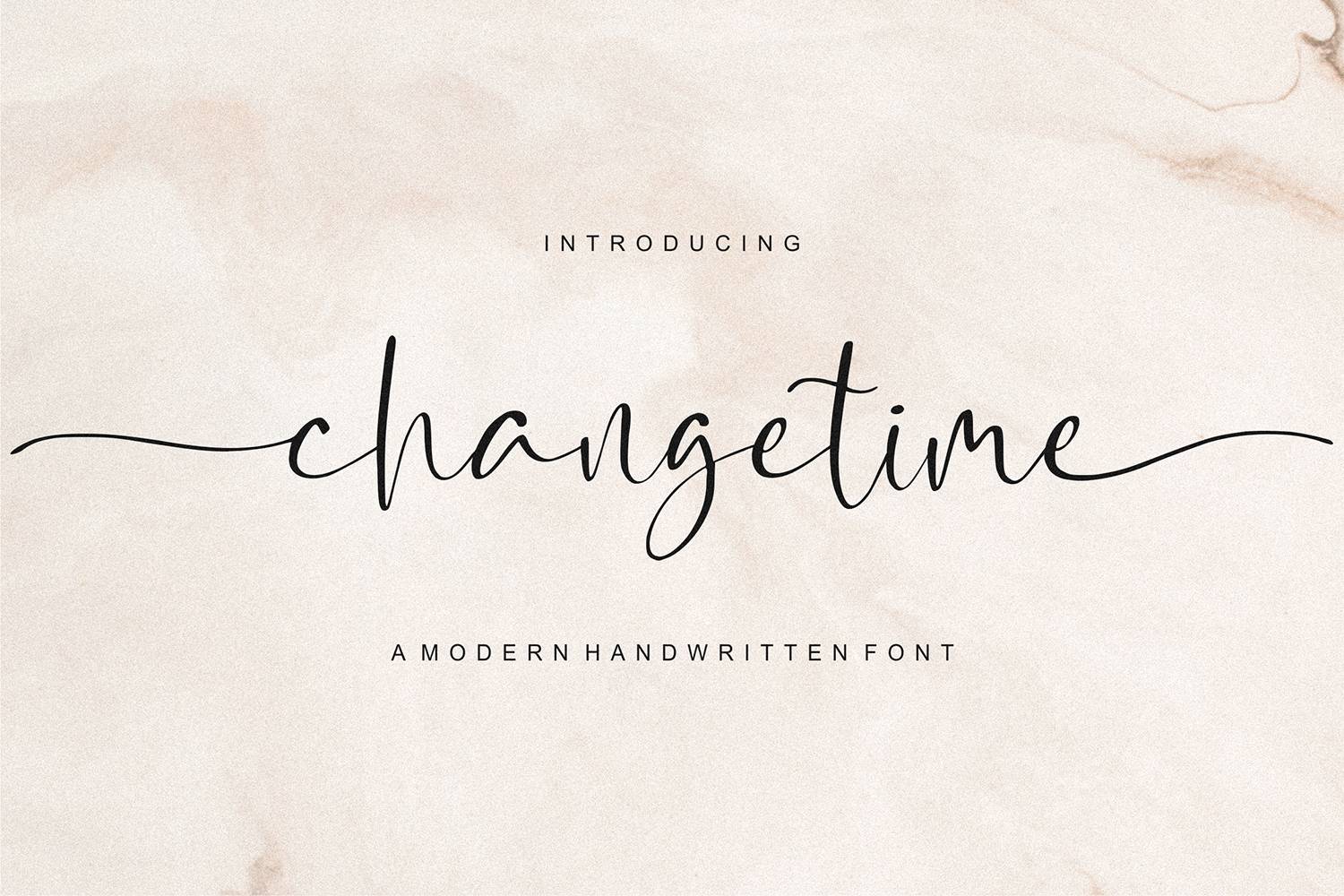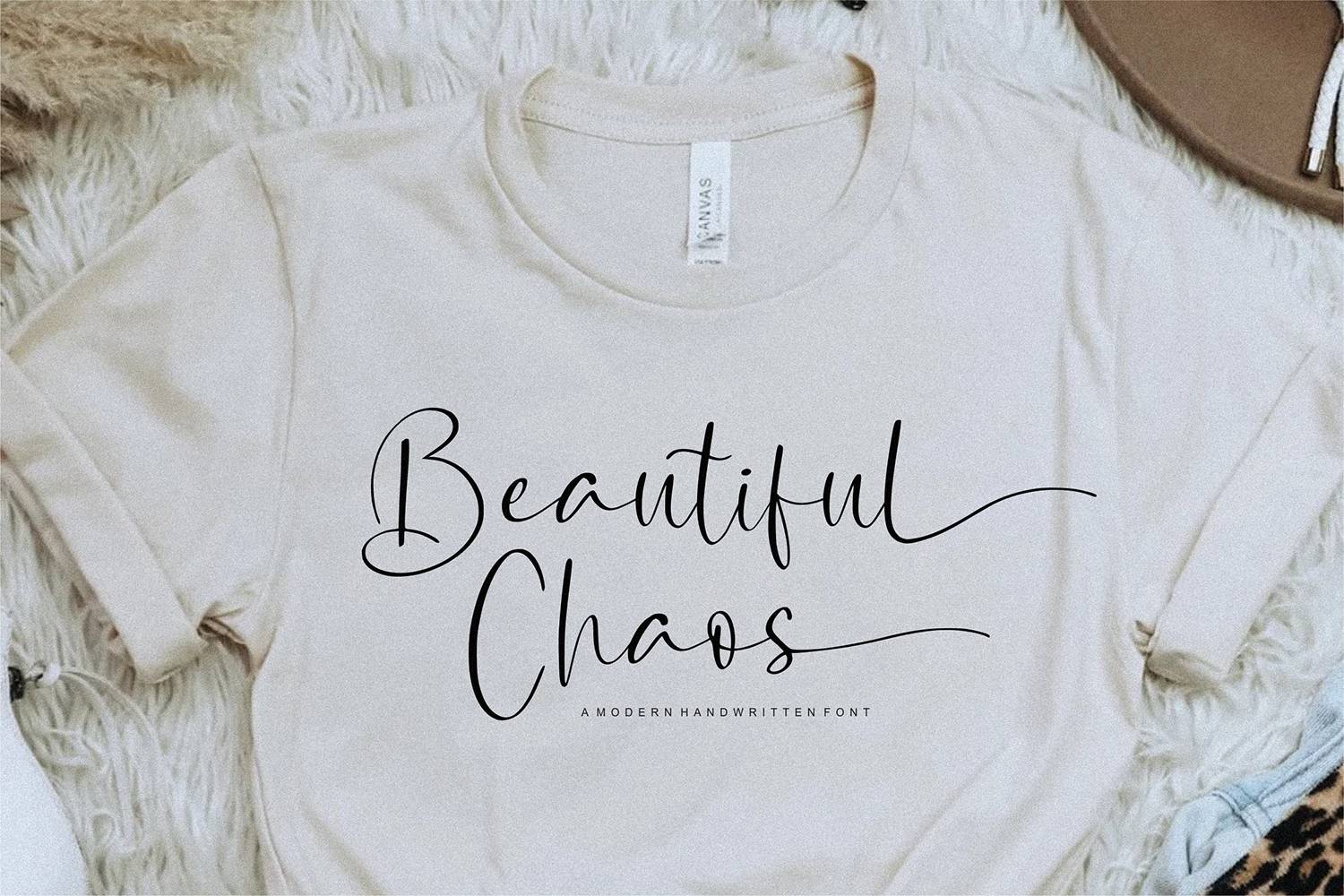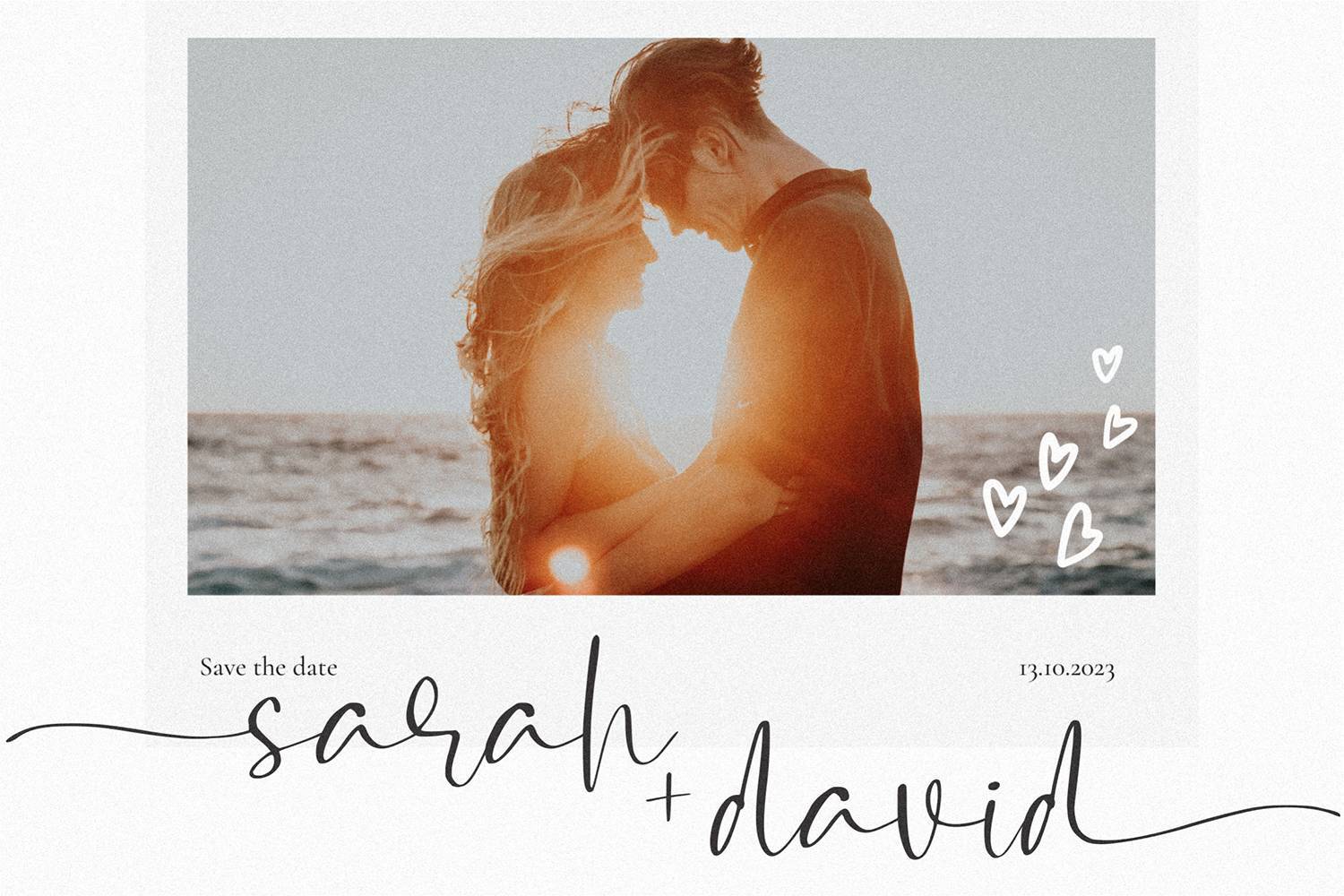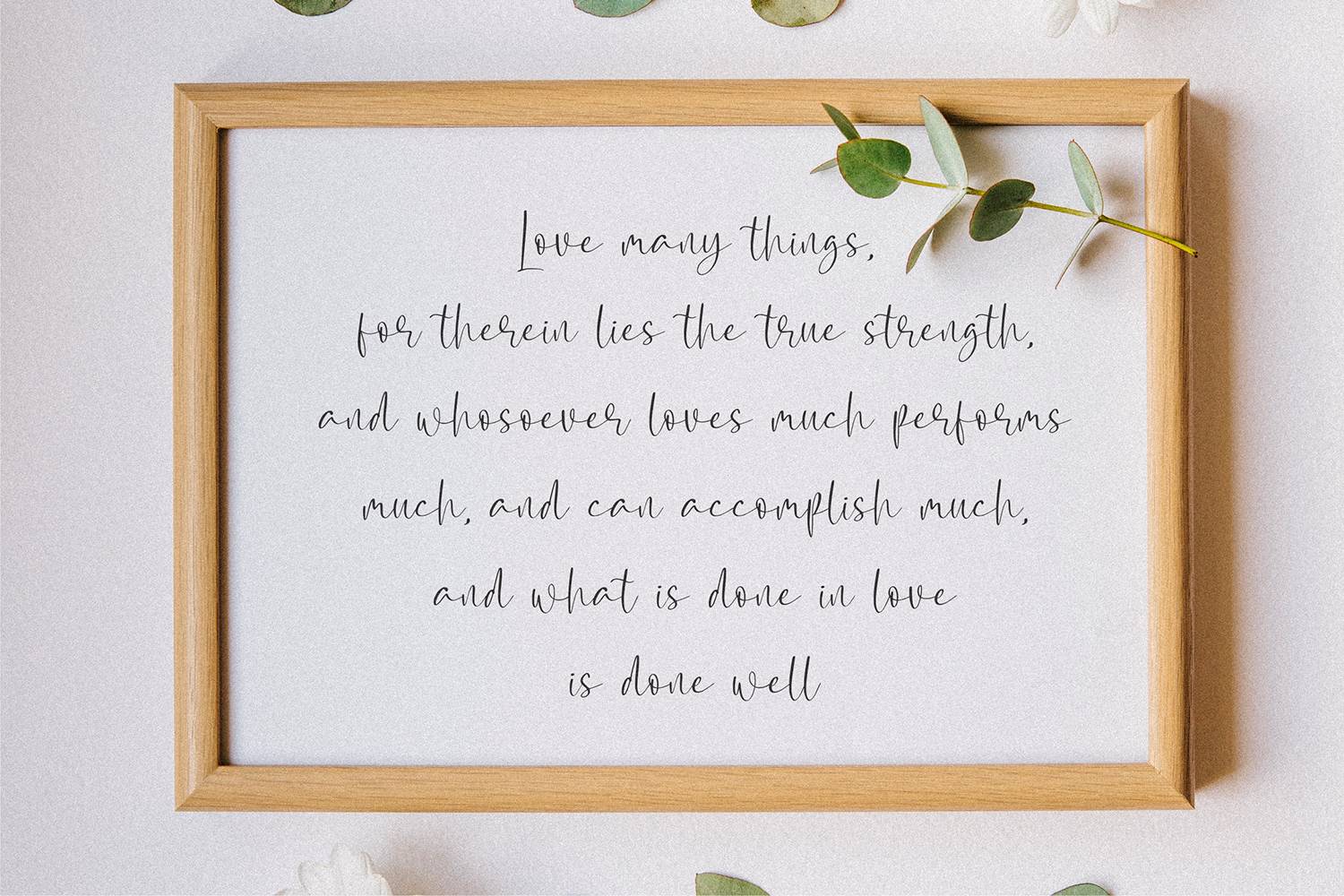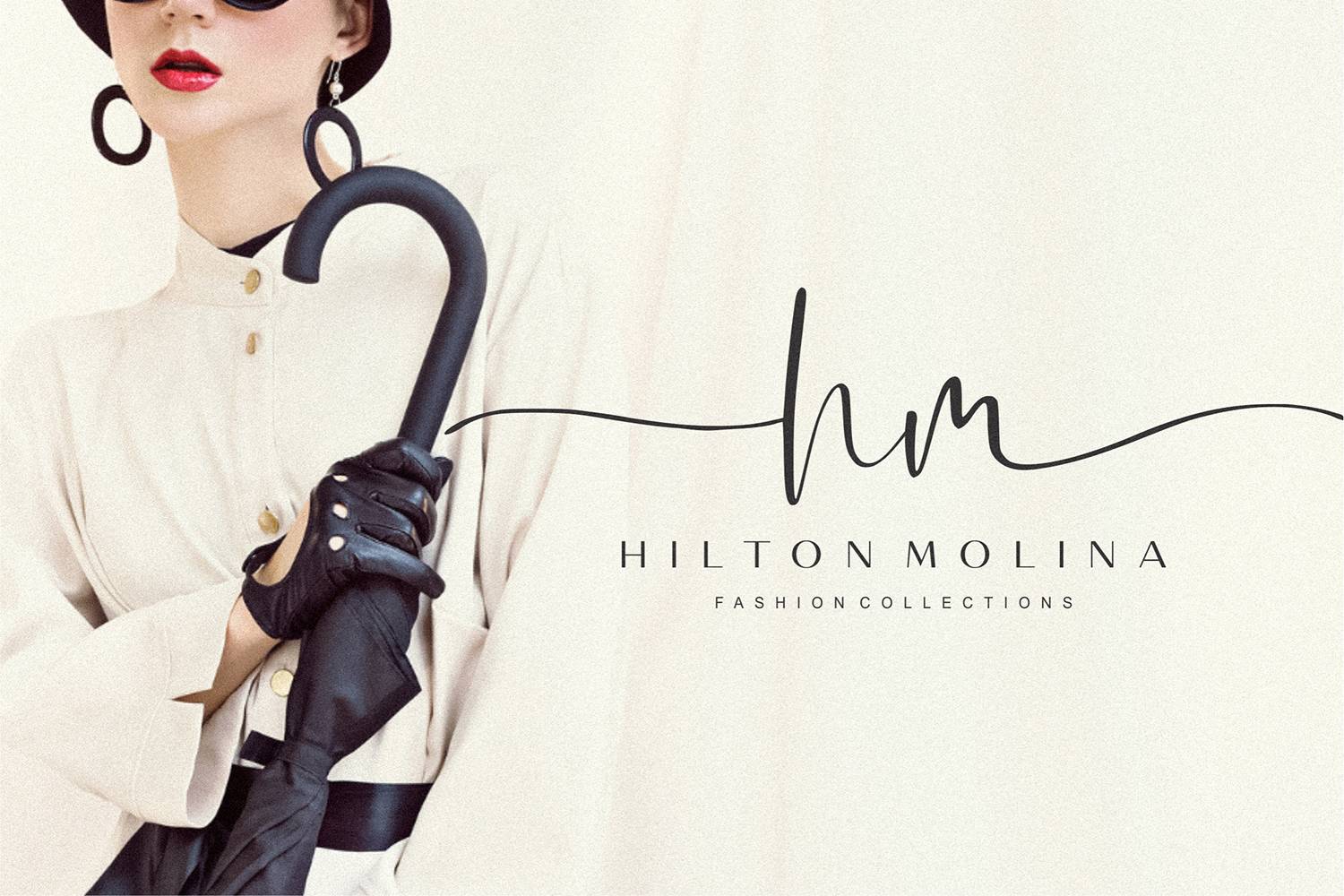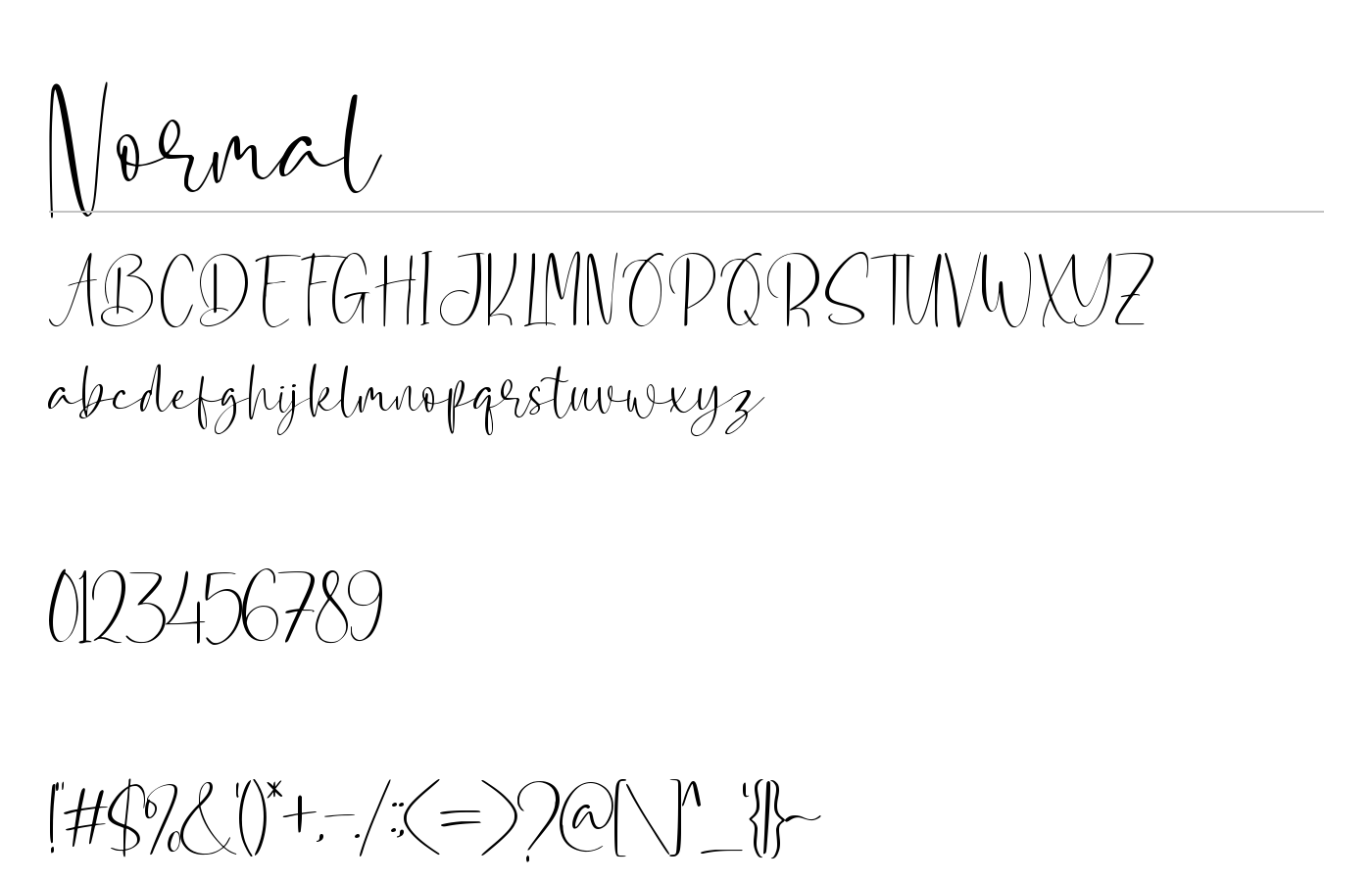
Changetime is a delicate, handwritten script font with a light, airy feel characterized by tall, narrow letterforms and elegant, flowing strokes. Its slender lines and slightly whimsical curves bring a personal, artistic touch, making it ideal for invitations, personal branding, and stylish editorial designs that seek a graceful and approachable look.
Changetime Font
About Changetime Font